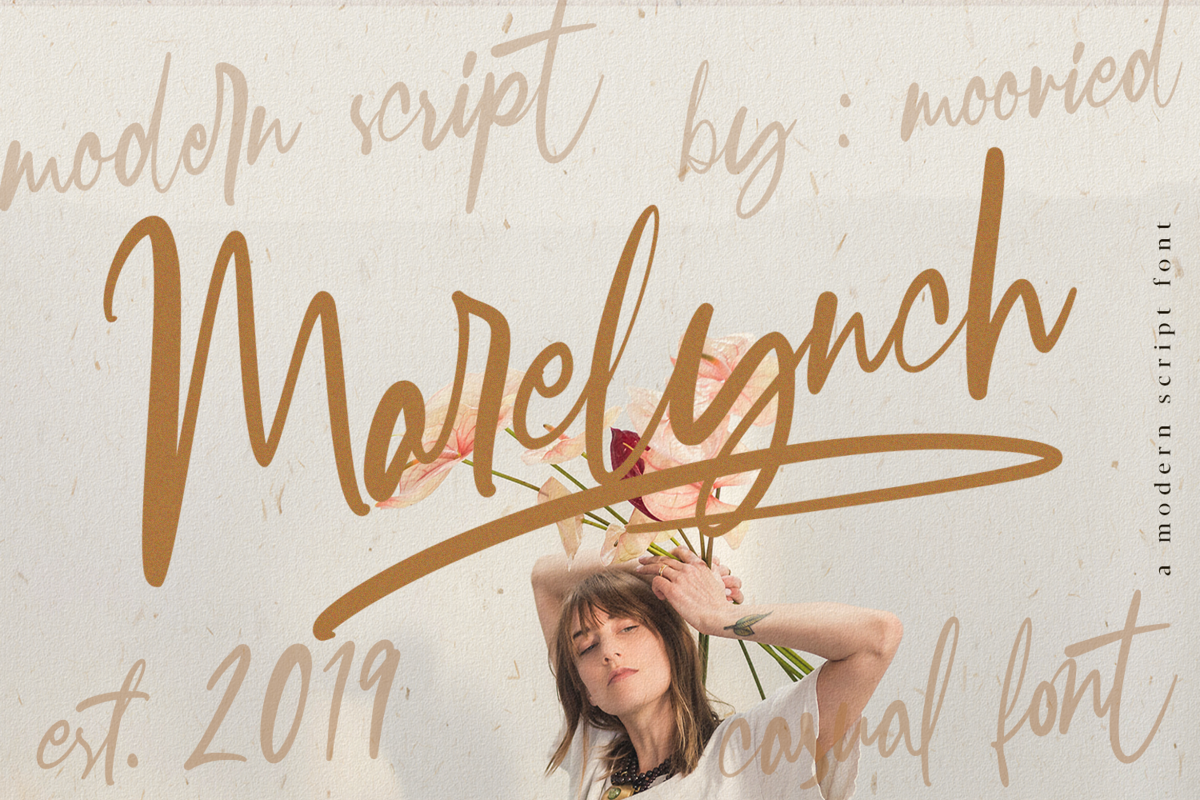
Marelynch Script
Marelynch-Regular
Marelynch Script is passionate calligraphy signature modern with contemporary, It is perfect for blogging, social media, branding, product packaging, wedding invitations, branding, headlines, signage, labels, signature, book covers, posters, quotes and more.to use a beautiful alternative, you need a program that supports OpenType features such as Adobe Illustrator CS, Adobe Photoshop CC, Adobe Indesign and Corel Draw.
• Basic Latin A-Z and a-z,
• Alternates A-Z and a-z, Numbers, Ligature
• Multilanguage Support